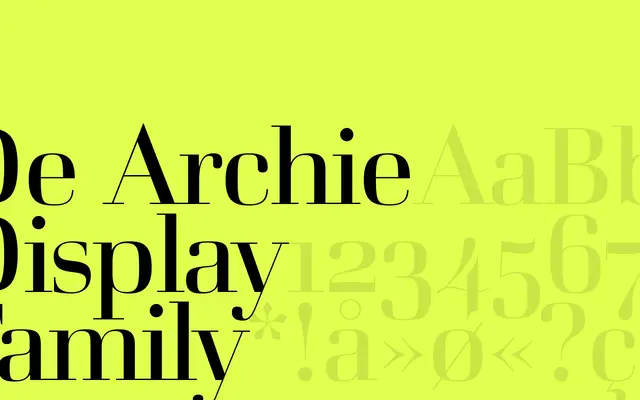
De Archie Display
Playtype
De Archie Display specimen from Playtype
A display serif from Playtype, conceived for large-scale headline and editorial use with expressive, high-contrast character.
De Archie Display is a high-contrast serif built for headlines and editorial contexts where presence at large sizes matters. The name and framing suggest a typeface with a strong individual character, suited to publishing, campaign and cultural projects. Limited technical detail is available from the foundry page, but the Display designation signals it is optimised for single-line or short-form setting rather than extended reading.
Named 'Display' in its title and characterised by expressive, high-contrast letterforms suited to large-scale editorial and headline use rather than continuous text.